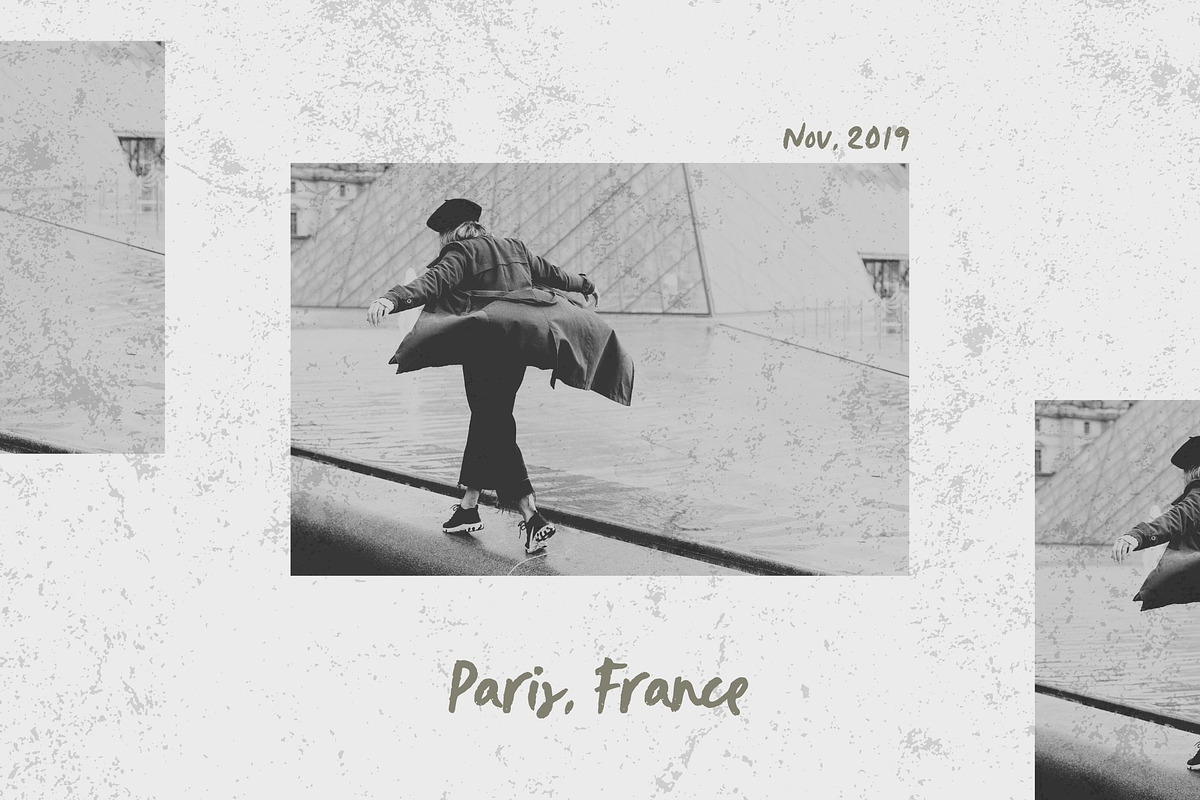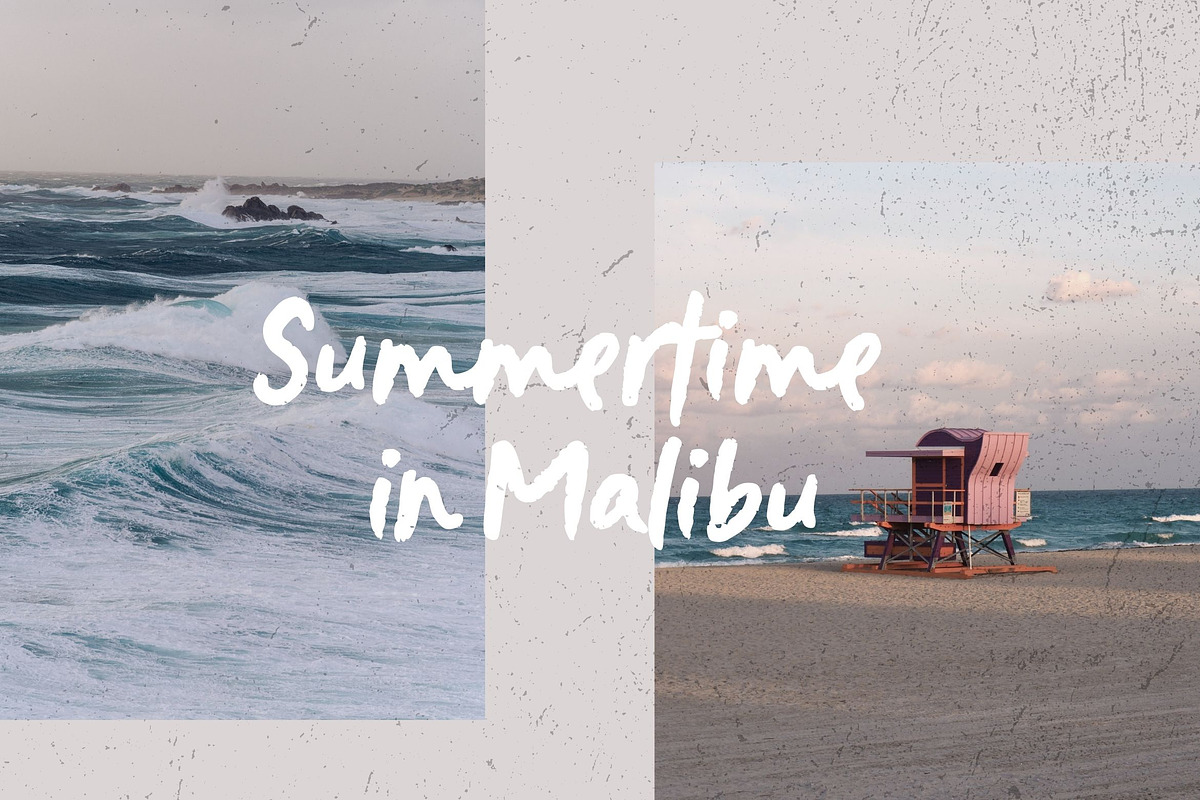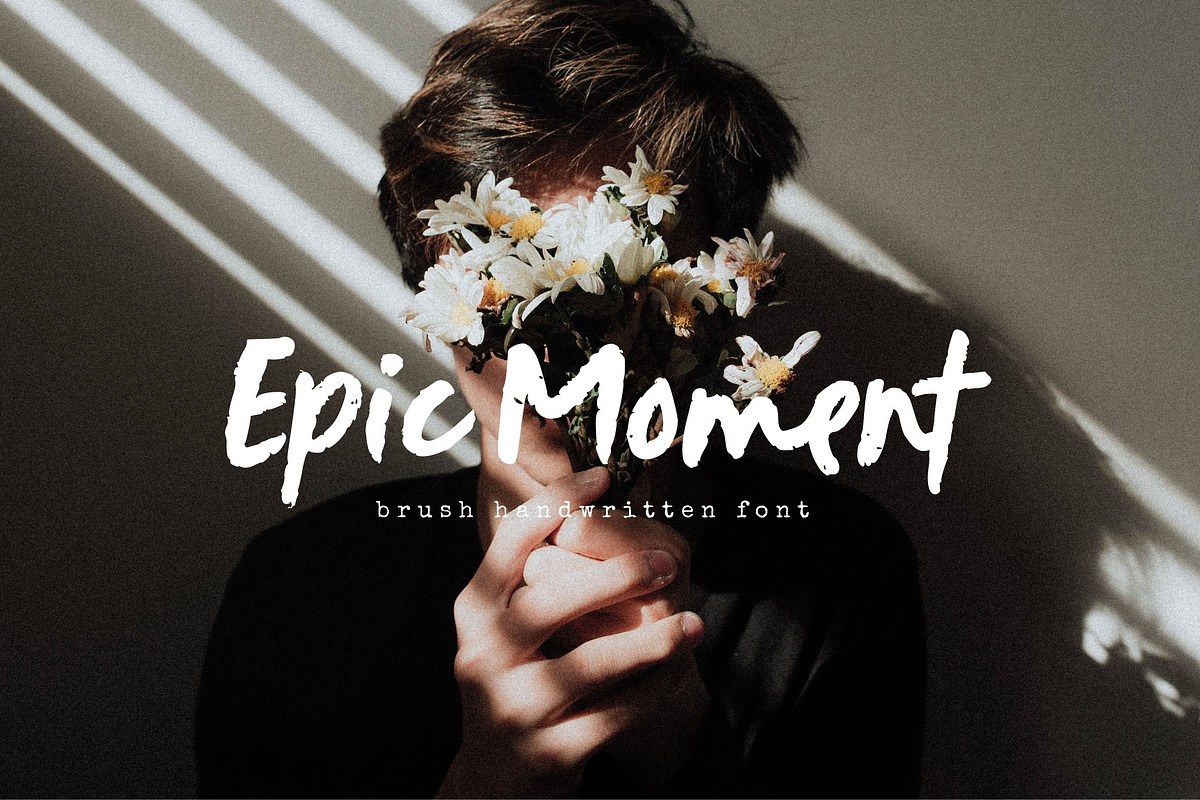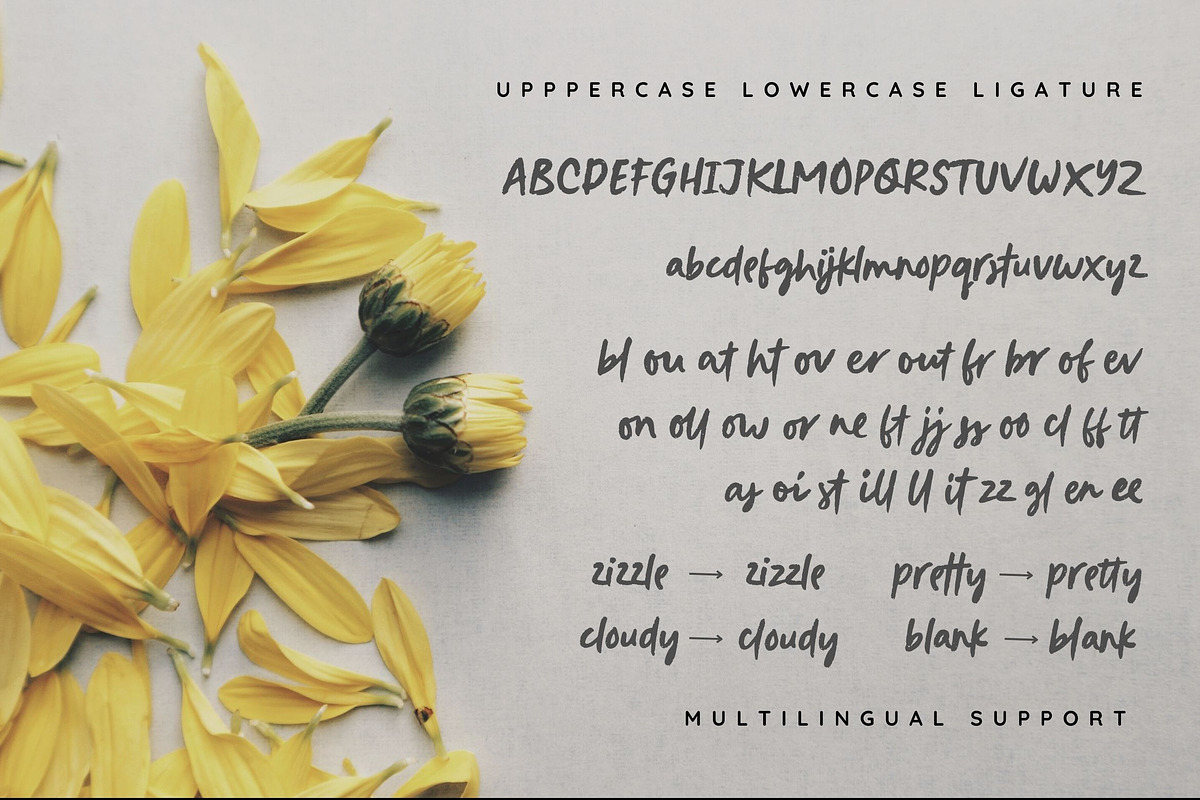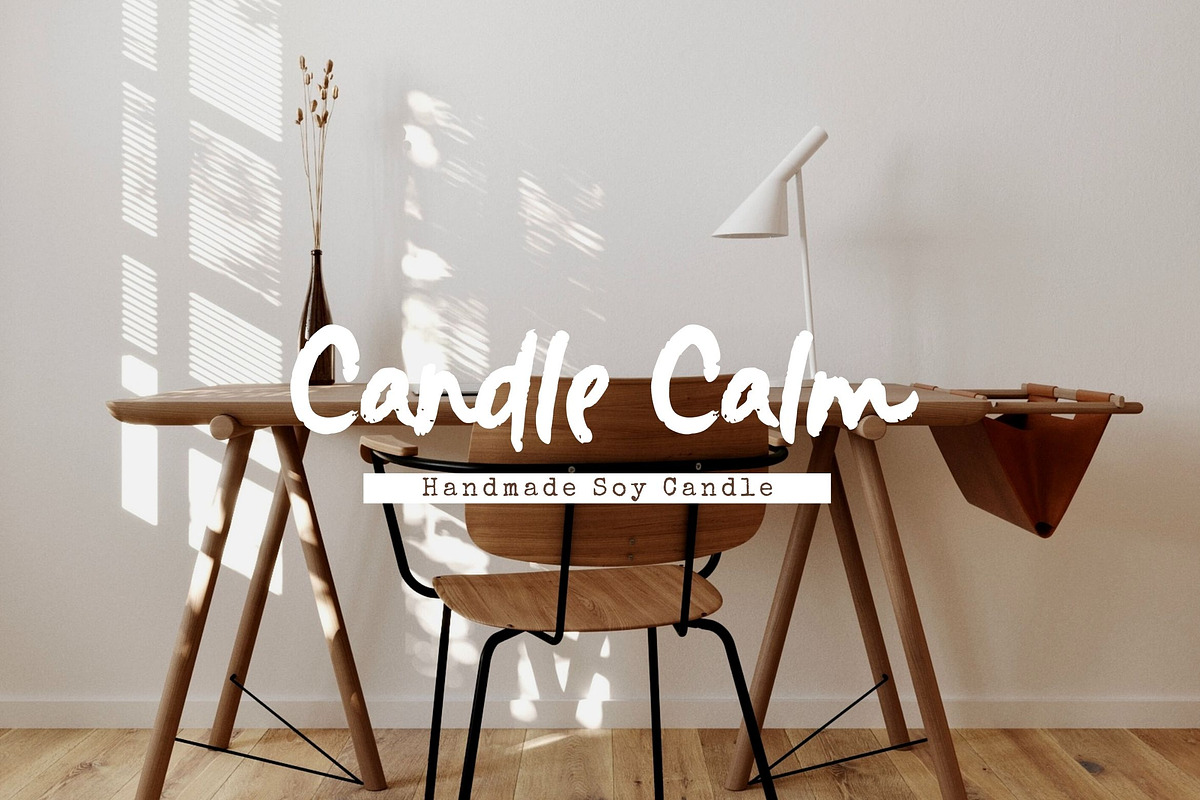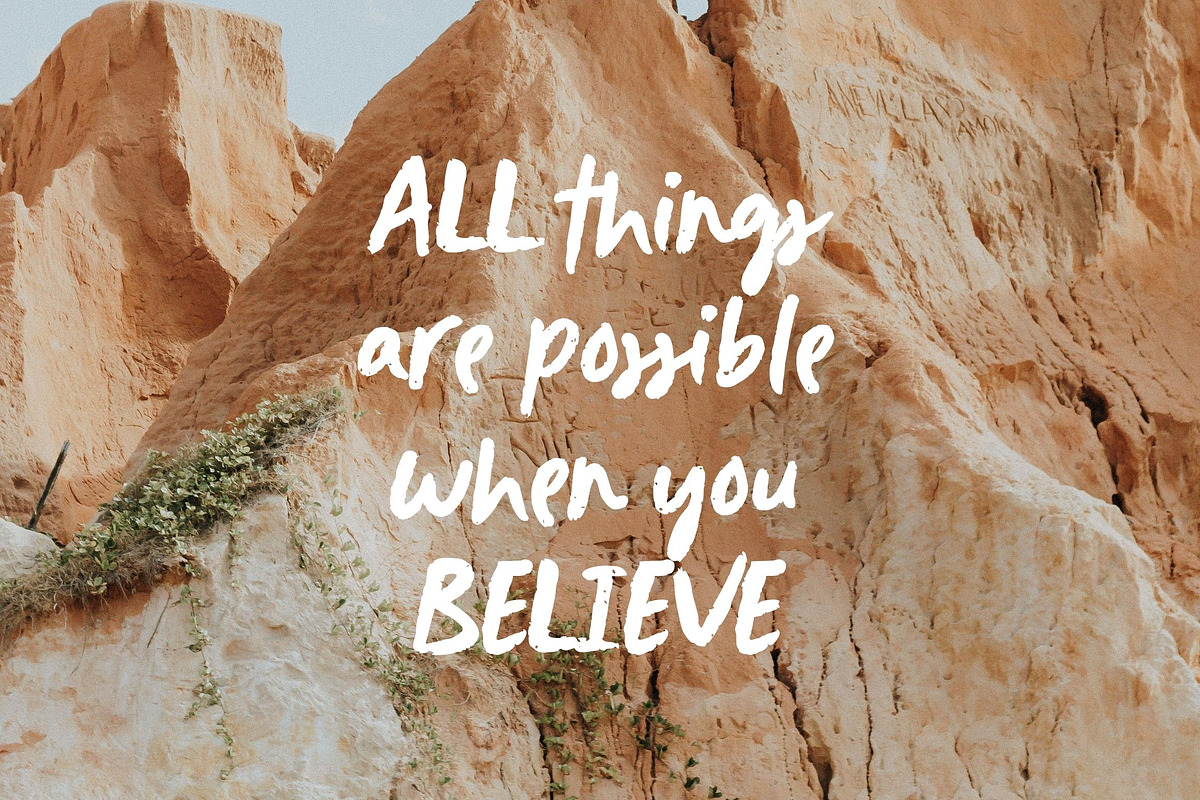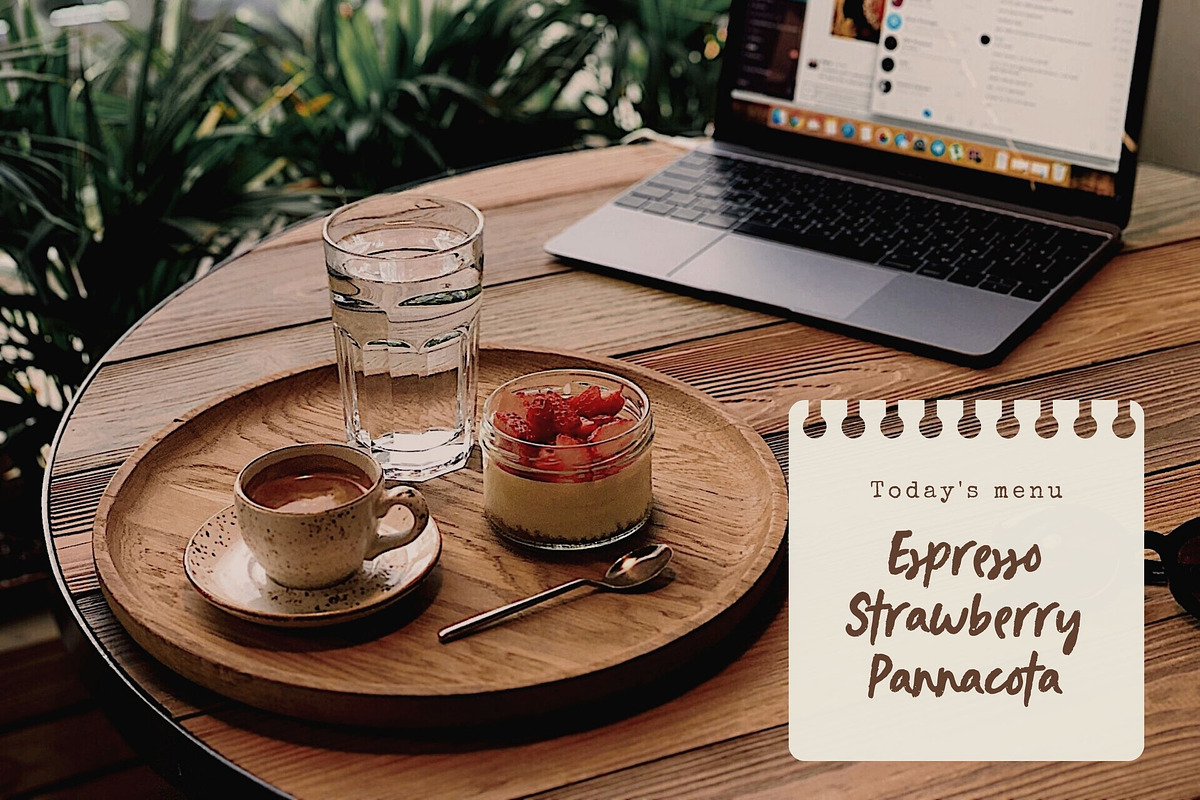
Epic Moment Brush Handwritten
Introducing, Epic Moment - a handwriting font with organic vibes. Epic Moment will be perfect for artsy design, poster designs, illustrations, anything that requires a natural vibes. It also perfect for creating beautiful quotes for social media posts. This font pair is a must have if you love handwritten fonts! This font also already PUA Encoded!